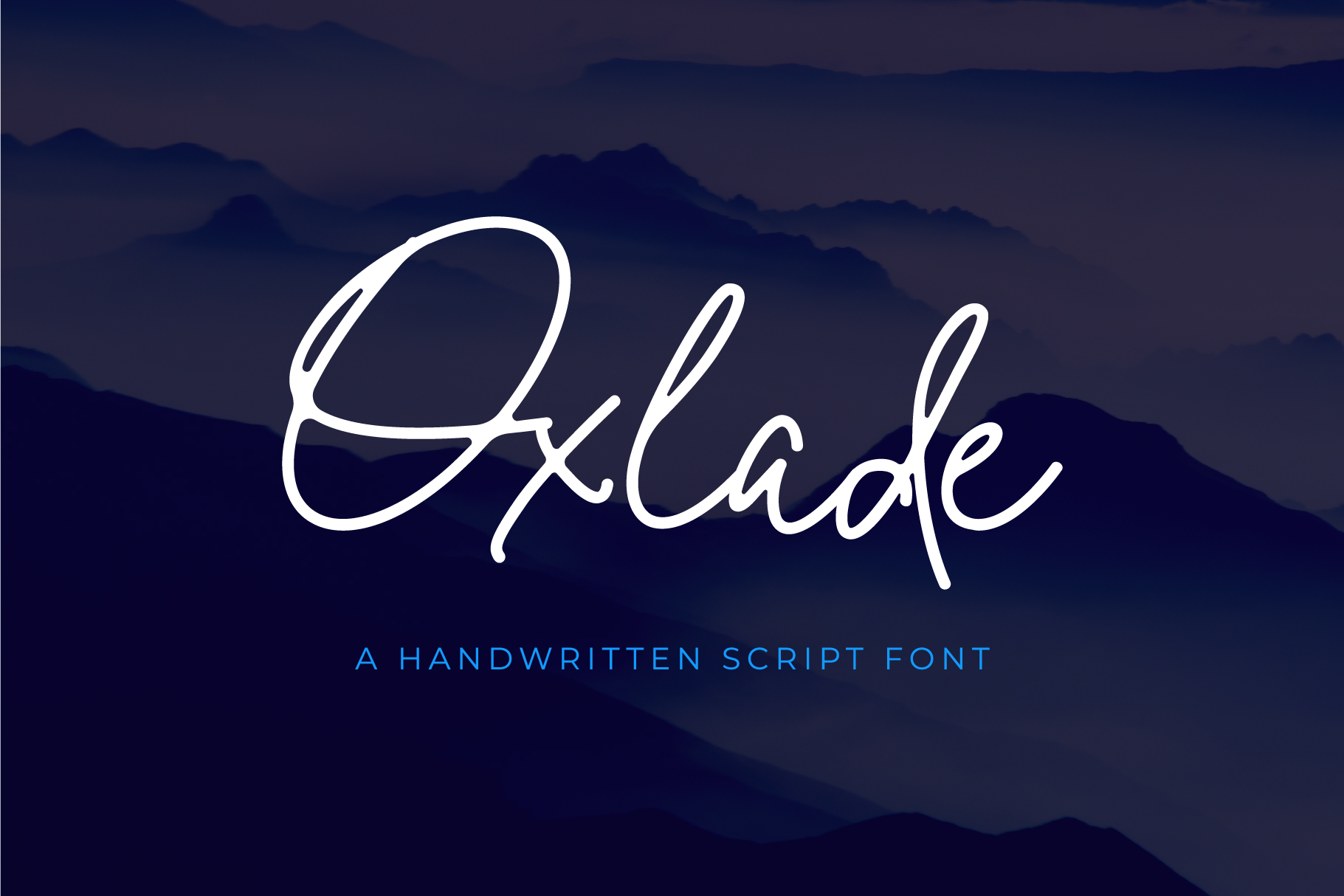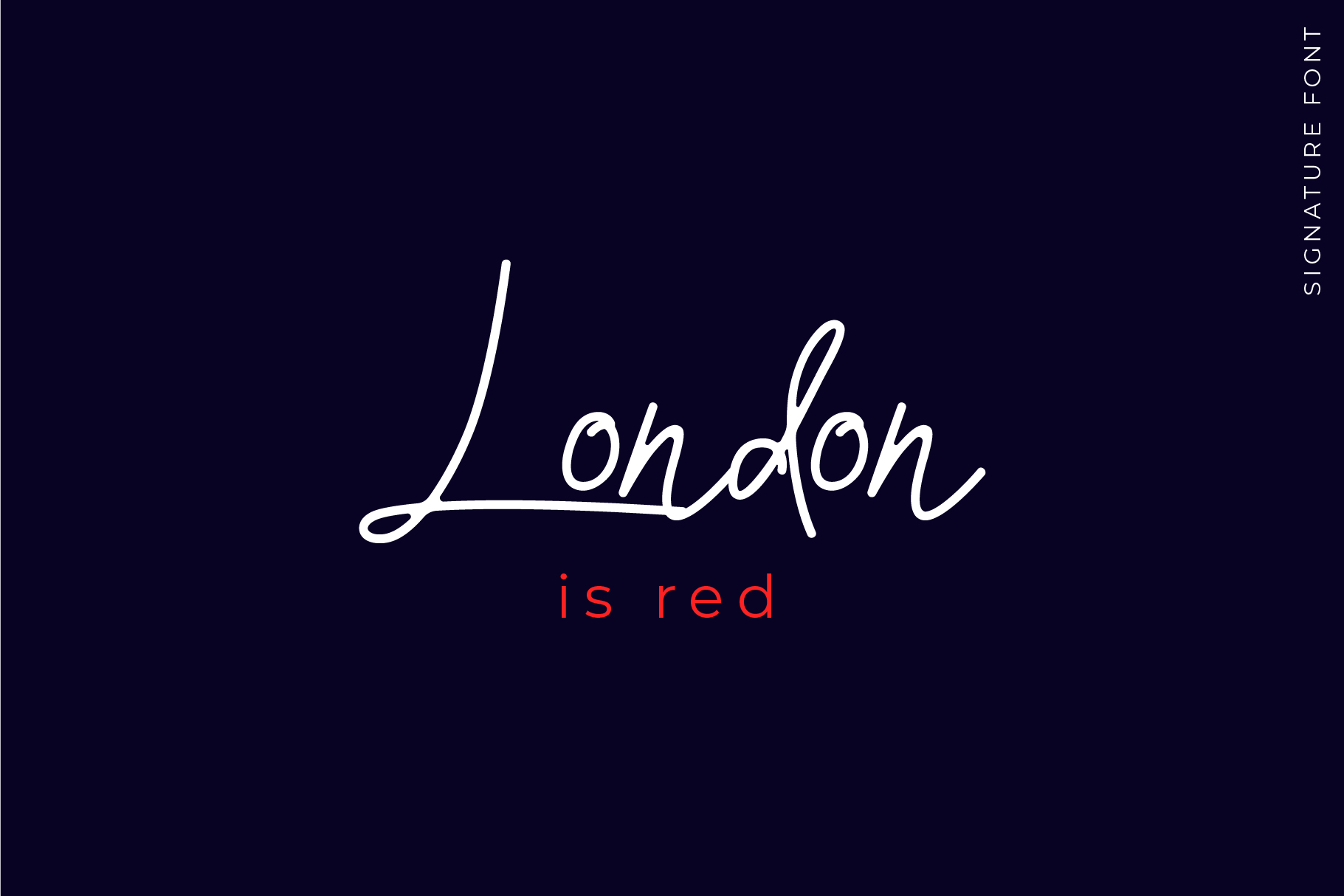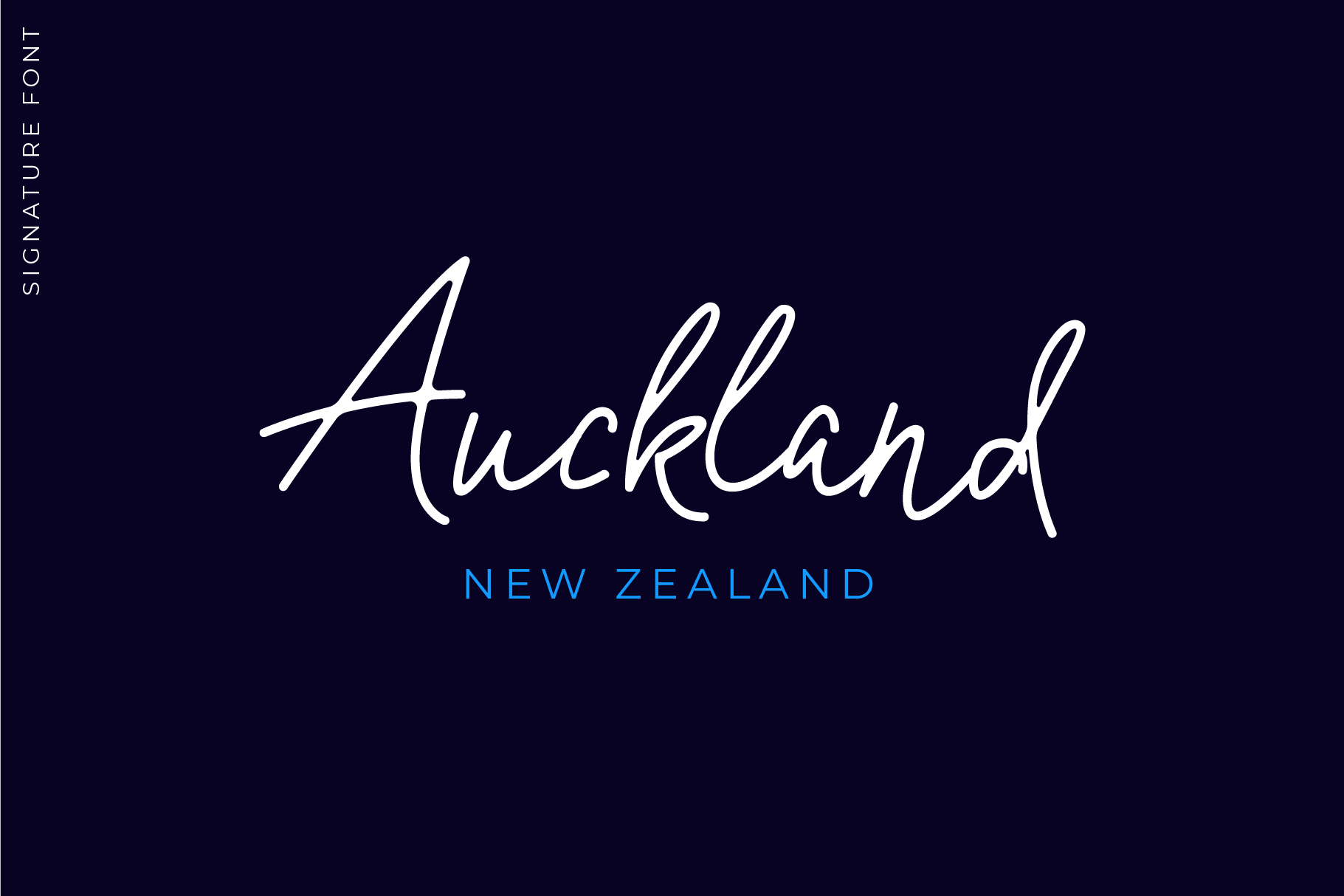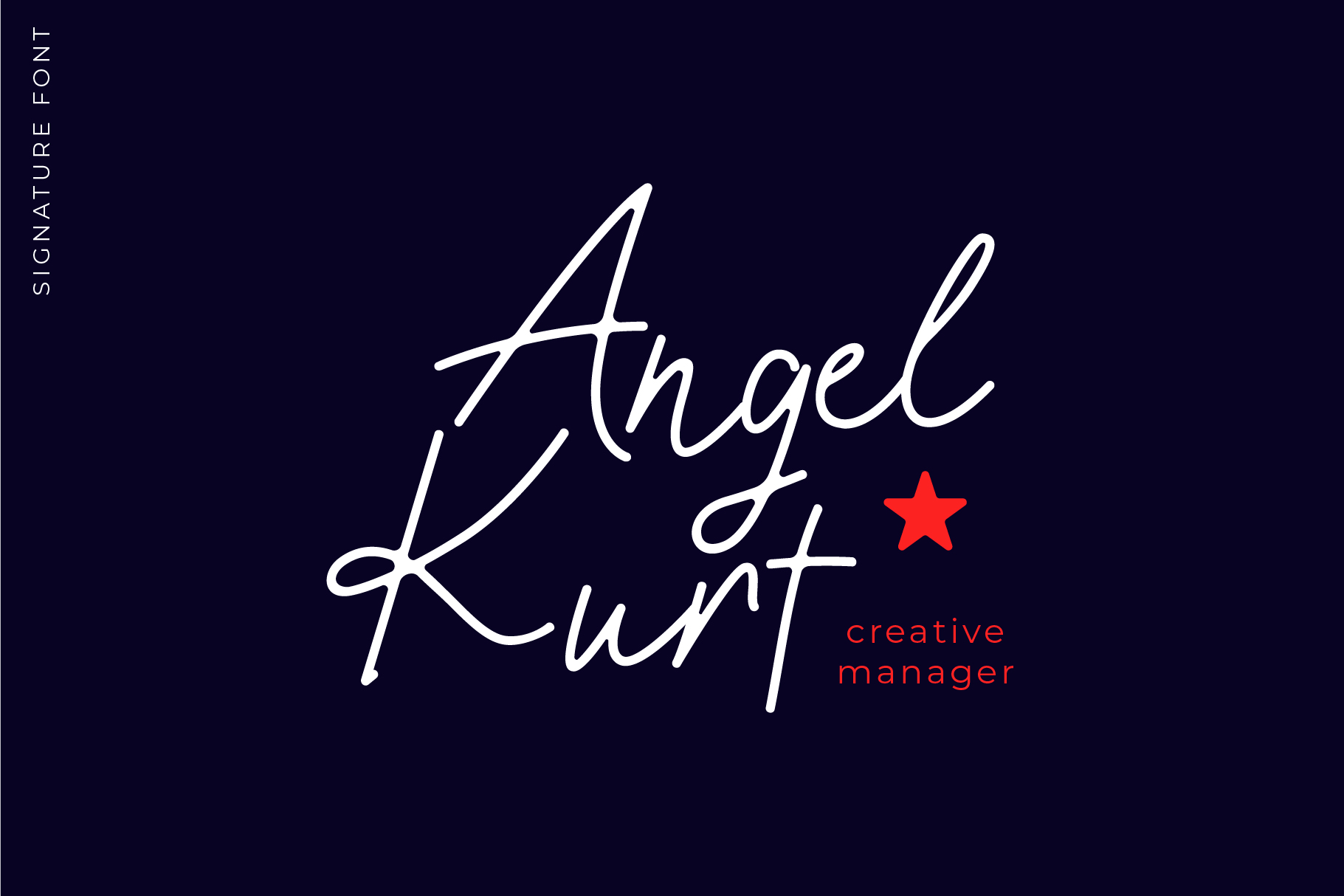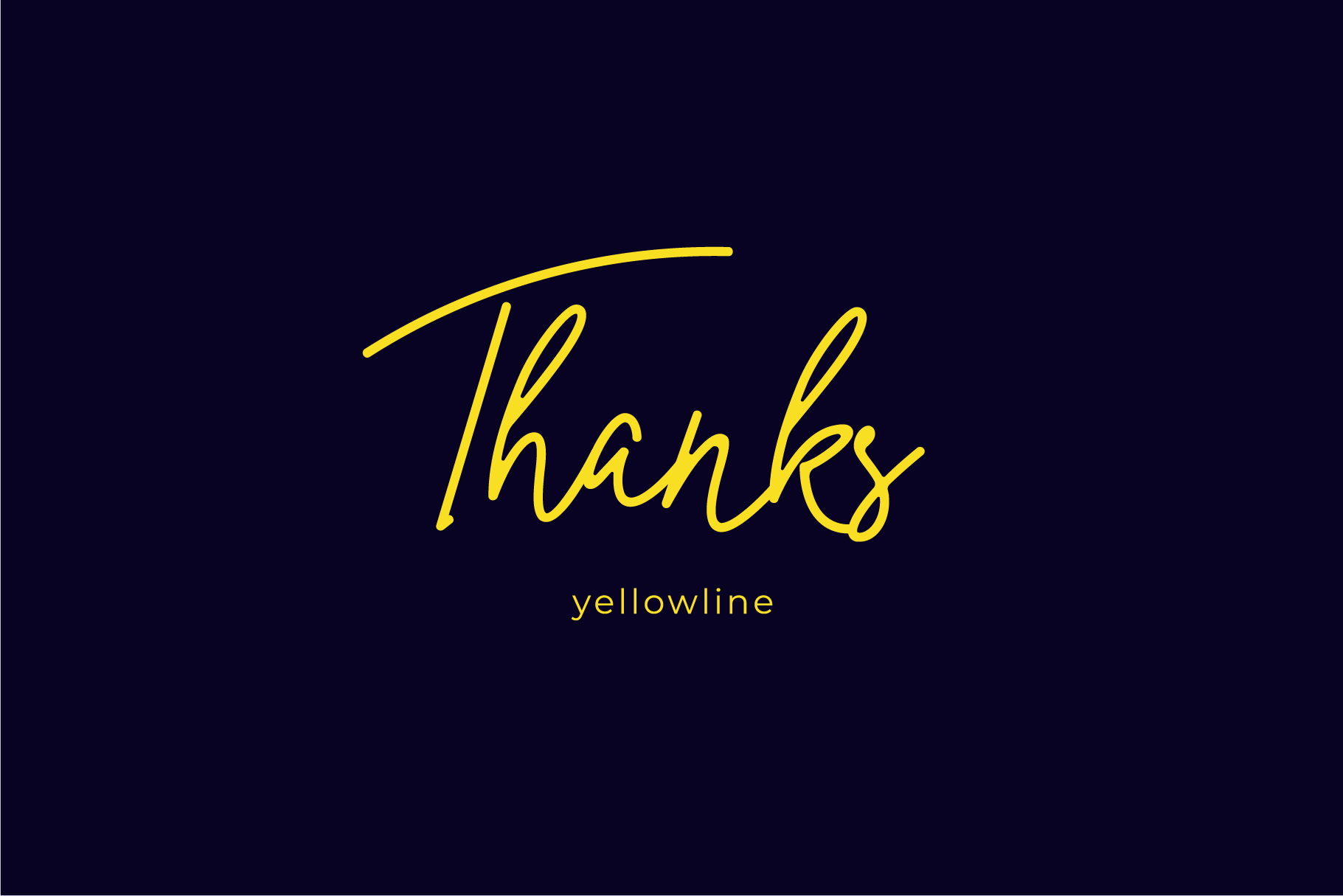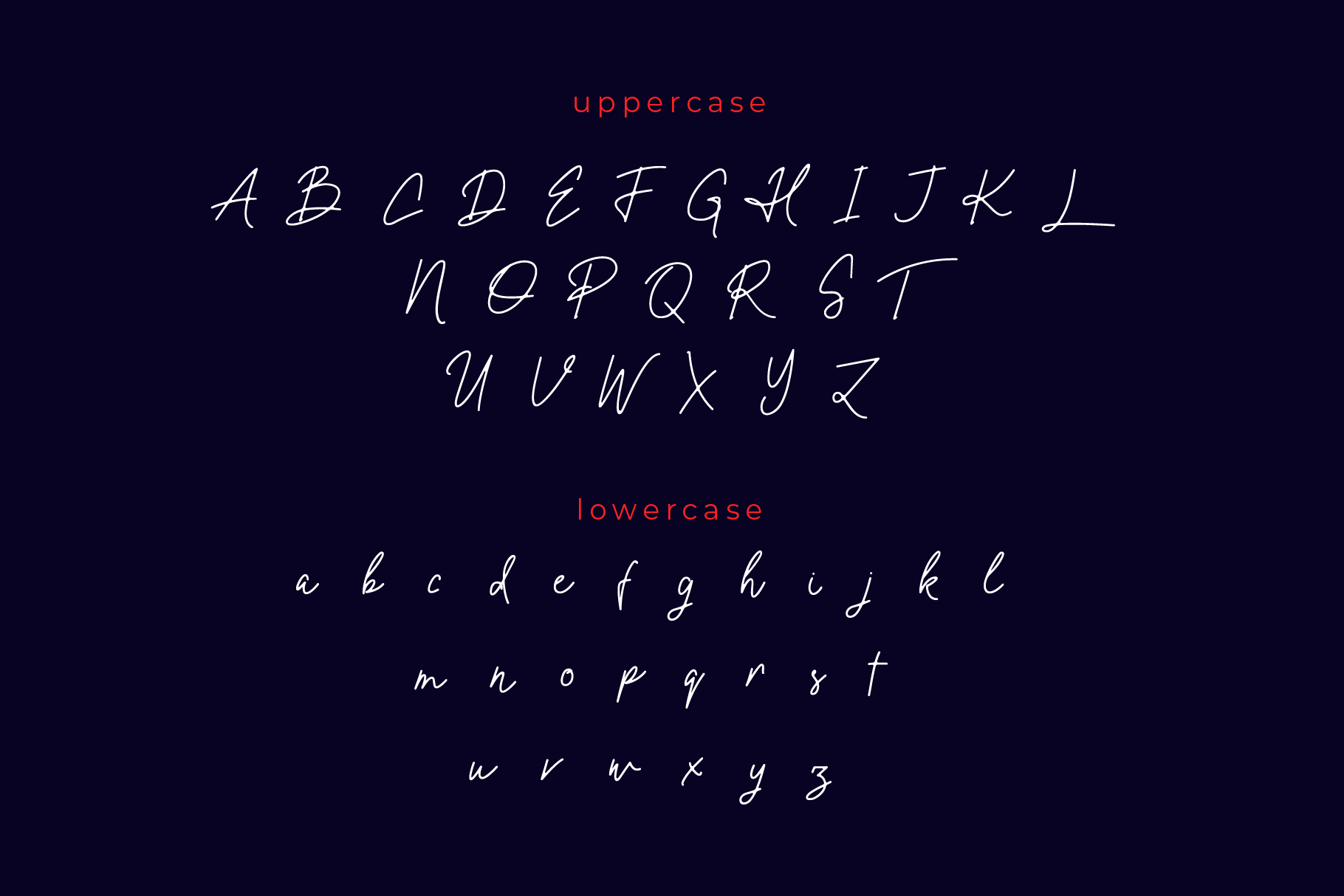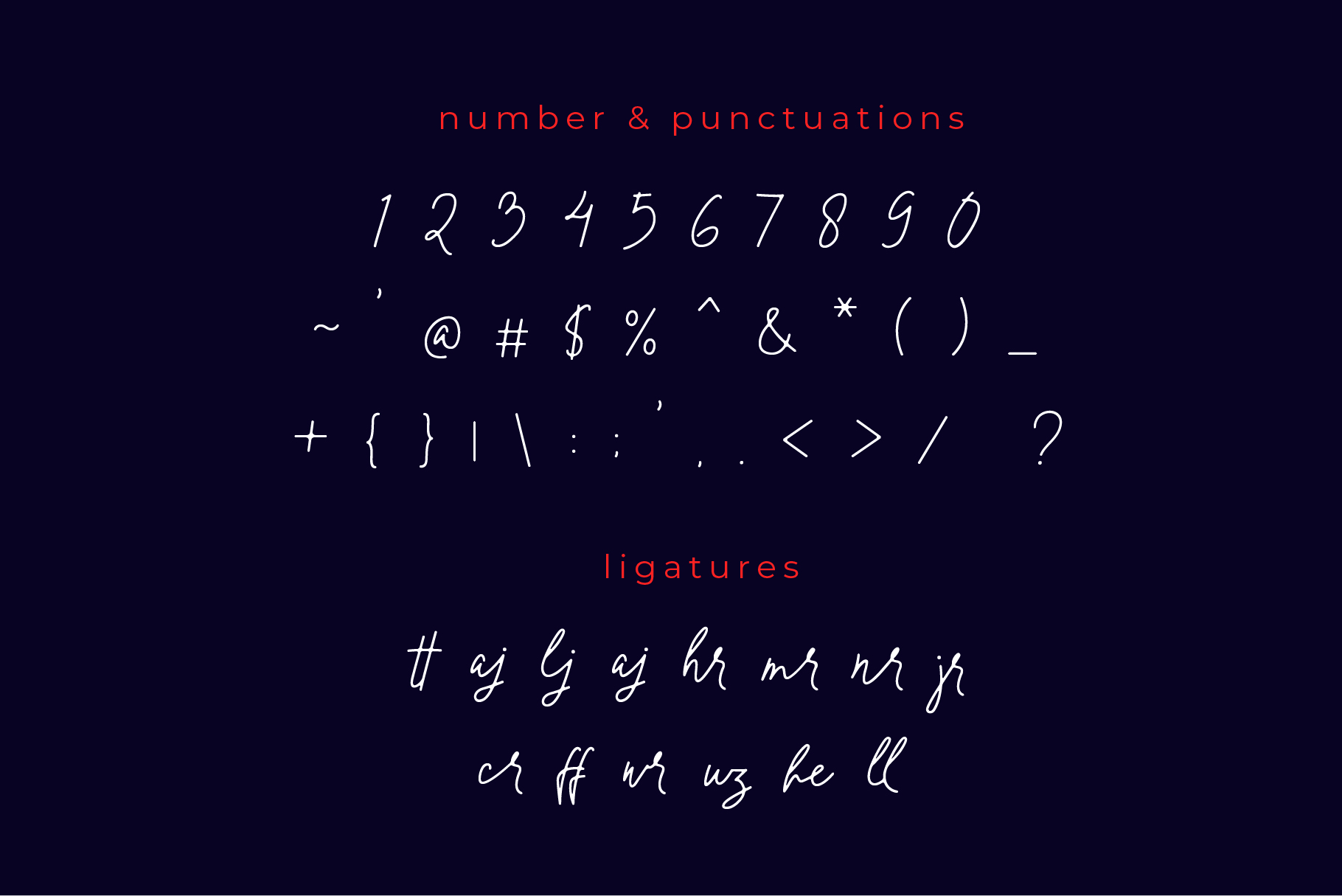
HomeScript FontsOxlade Font Script Fonts Oxlade Font FacebookXPinterestWhatsApp Oxlade Font Poster 2 Oxlade Font Poster 3 Oxlade Font Poster 4 Oxlade Font Poster 5 Oxlade Font Poster 6 Oxlade Font Poster 7 About Oxlade Font Oxalade is a fresh signature font. It’s very suitable to use as a logo type, for packaging or product design. DOWNLOAD ON CREATIVE FABRICAThis font is sold and delivered by Creative Fabrica. Font Canyon may earn a commission if you buy through this link. People also explored Forselia Font Havana Choice Font Have to Love Font Clover Flower Font Farmhouse Children Font Jackylin Font Bubbles Font Bombing Font Rainforest Font 299 0 TagsOxlade Font Previous articleRise & Shine FontNext articleStylish Font LEAVE A REPLY Cancel reply Comment: Please enter your comment! Name:* Please enter your name here Email:* You have entered an incorrect email address! Please enter your email address here Website: Save my name, email, and website in this browser for the next time I comment. Personal Use Free Mallvirra Personal Use Free Read more about this font Adlanta Personal Use Free Read more about this font Rhetorical Personal Use Free Read more about this font Pompom Personal Use Free Read more about this font BLOG Top 7 Google Fonts Alternatives for Faster and Privacy-Friendly Web Design (2025) Top 7 Google Fonts Alternatives for Faster and Privacy-Friendly Web Design (2025) When it comes to web typography, Google Fonts has long been the go-to... Best Fonts for T-Shirt Design – Top 2025 Picks Fonts That Capture the Spirit of New York City Best Fonts for YouTube Videos: Make Your Thumbnails Stand Out